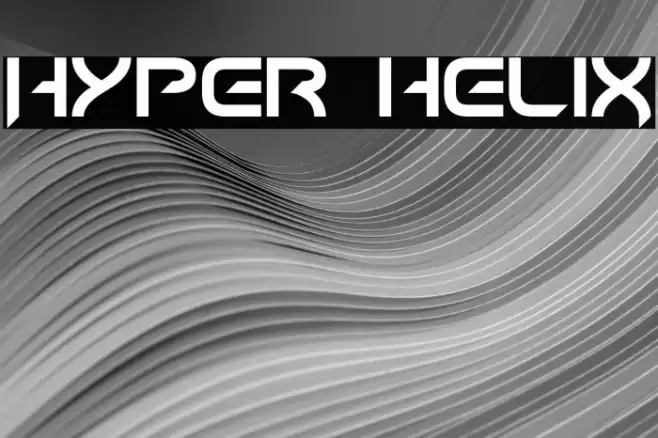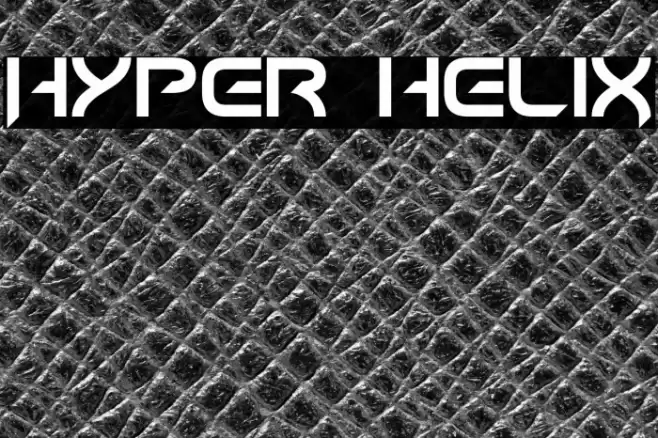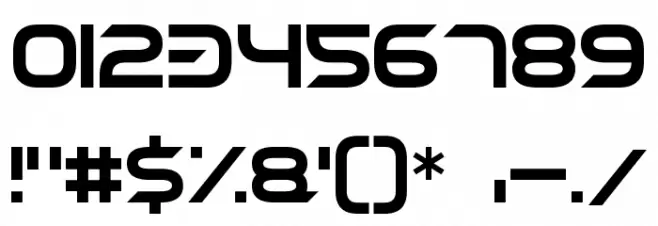
Hyper heliX Font
Hyper heliX Description
This font features a futuristic and geometric design, characterized by sharp angles and clean lines. The uppercase letters exhibit a unique blend of angular cuts and smooth curves, creating a dynamic and modern appearance. The lowercase letters maintain a consistent style, offering a cohesive look across all characters. The numerals are bold and distinct, with a similar angular design that complements the alphabetic characters. Special characters are crafted with the same attention to detail, ensuring uniformity throughout the font. This typeface is ideal for projects that require a modern and edgy aesthetic, such as technology branding or sci-fi themed designs.
A futuristic, angular font with a modern and dynamic style from Regular fonts.
- Font: Hyper heliX